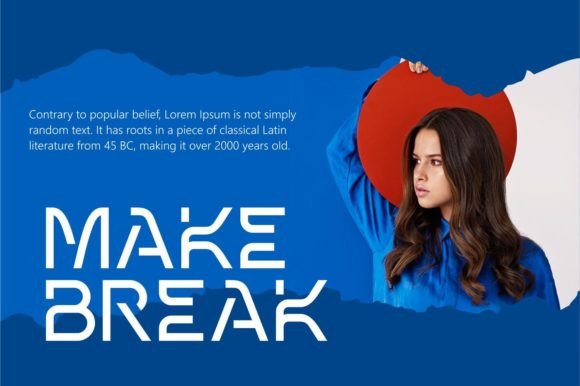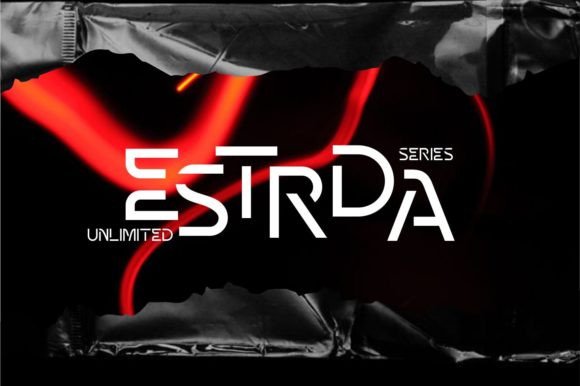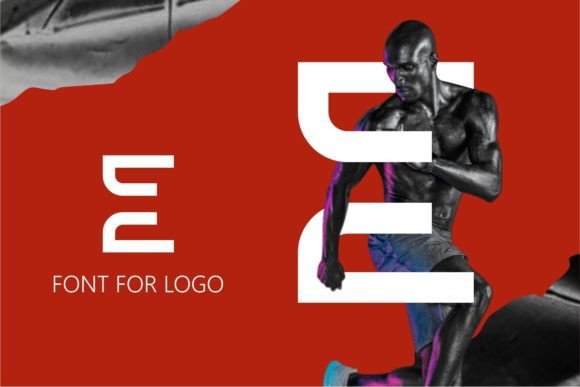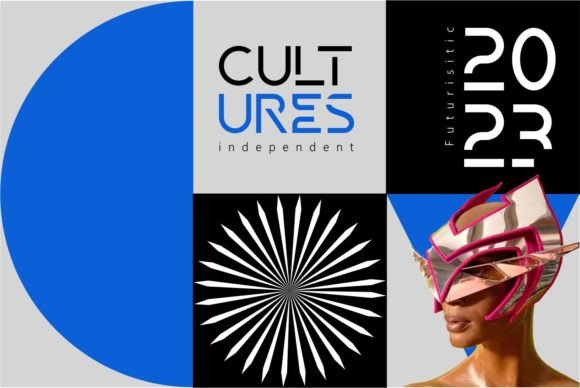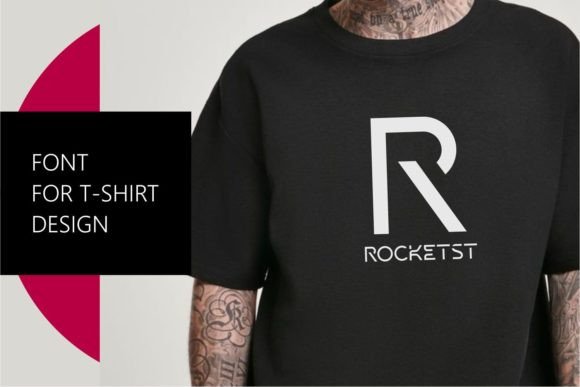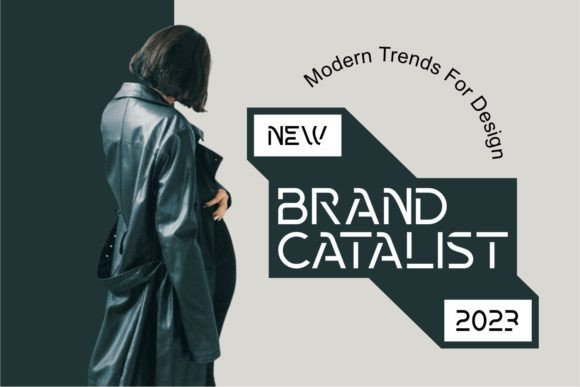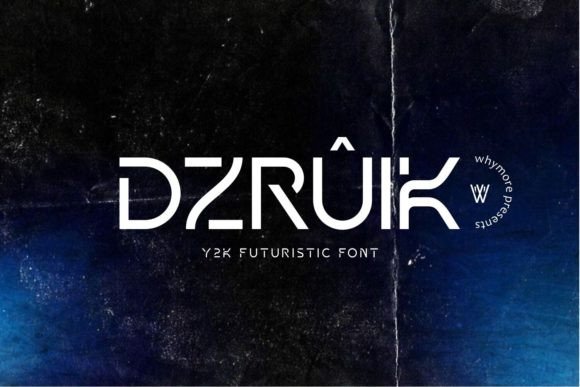
Discover the Futuristic Elegance of Dzruik Font: A Perfect Blend of Minimalism and Luxury
In the realm of typography, fonts play a pivotal role in defining the visual identity of a brand, product, or creative project. Among the myriad of typefaces available, Dzruik Font stands out as a beacon of modernity and sophistication. This article delves into the characteristics, applications, and benefits of using Dzruik Font, a versatile typeface that embodies the essence of futuristic design while echoing the nostalgic vibes of the Y2K era.
Minimalist yet Luxurious and Classy
Dzruik Font is the epitome of minimalist design, characterized by its clean lines, uncluttered aesthetic, and a keen focus on functionality. Despite its simplicity, it exudes a luxurious and classy appeal that is hard to ignore. This unique blend makes it an ideal choice for designers and crafters looking to imbue their projects with a sense of elegance and refinement. Whether it’s for branding, designing templates, creating calendars, posters, headlines, brochures, promotional tools, or editorial designs, Dzruik Font proves to be a versatile and valuable asset.
Designed for the Future of Design
Dzruik was created with the visual needs of technological development in mind. Its design takes into account the evolving landscape of digital media and the increasing importance of legibility across various platforms. This forward-thinking approach ensures that Dzruik Font remains relevant and effective in a wide range of applications, from digital interfaces to print materials.
Versatility at Its Core
The versatile nature of Dzruik Font is one of its most compelling features. It is perfectly suited for headlines, logos, and lettering, where its unique characteristics can be showcased to their fullest potential. The font’s legibility ensures that messages are communicated clearly and effectively, making it an excellent choice for projects where readability is paramount. At the same time, its distinctive style invites a sharp eye catch, adding an element of allure to any design.
A Perfect Blend of Futurism and Y2K Style
Dzruik Font strikes a perfect balance between futuristic design principles and the retro charm of the Y2K era. This blend gives it a timeless quality, allowing it to transcend fleeting trends and fashions. With Dzruik, designers can create works that are not only contemporary but also resistant to the test of time. Its futuristic style ensures a forward-thinking aesthetic, while the Y2K feel adds a layer of nostalgia and familiarity, making it accessible and engaging for a broad audience.
Applications of Dzruik Font
The applications of Dzruik Font are vast and varied. Here are a few areas where it truly shines:
- Branding: Use Dzruik to create memorable and impactful brand identities that stand out in a crowded marketplace.
- Design Templates: Enhance your templates with a touch of sophistication and modernity.
- Calendars and Posters: Add a professional yet stylish touch to your print materials.
- Headlines and Brochures: Elevate your editorial designs with a font that commands attention and communicates with clarity.
- Promotional Tools: Make your promotional materials more engaging and effective.
Dzruik Font is a remarkable typeface that offers a unique combination of minimalism, luxury, and class. Its versatility, legibility, and distinctive style make it an excellent choice for designers and crafters looking to create visually stunning and effective designs. Whether you’re aiming to create a brand identity, design templates, or simply looking for a font that embodies the essence of modern sophistication with a nod to the past, Dzruik Font is an exceptional option. Embrace the future of design with Dzruik, and elevate your projects to new heights of elegance and impact.